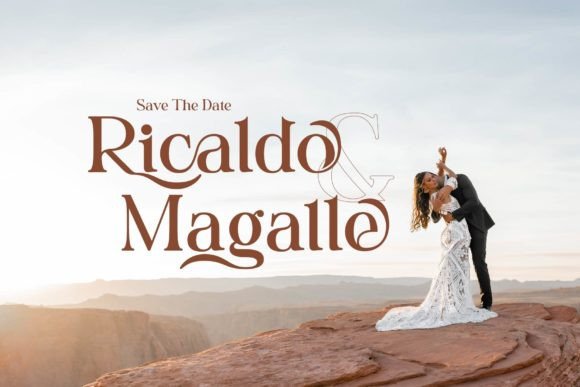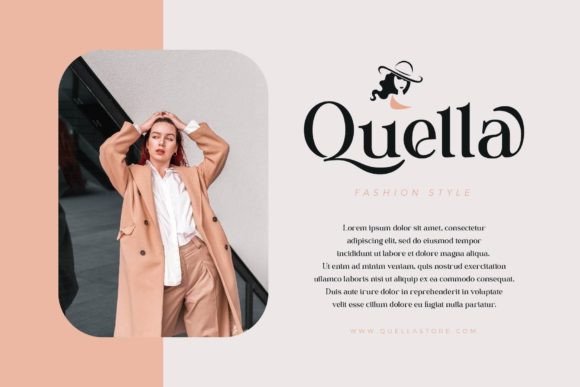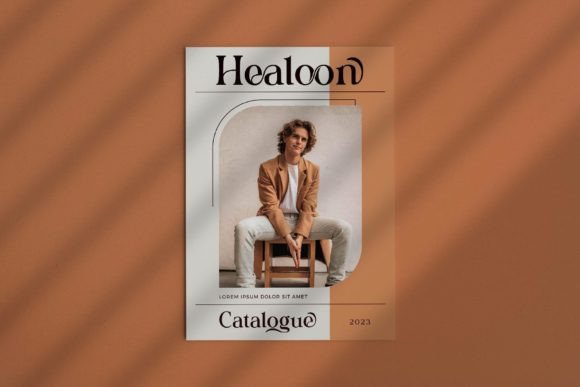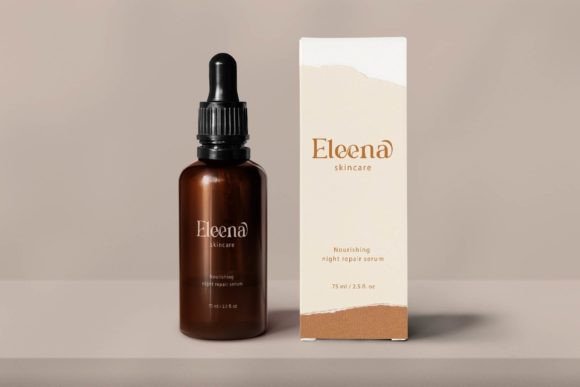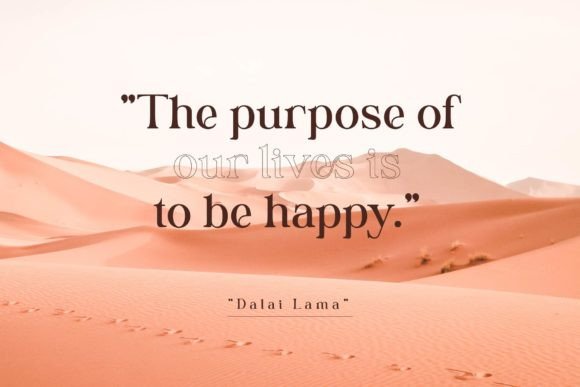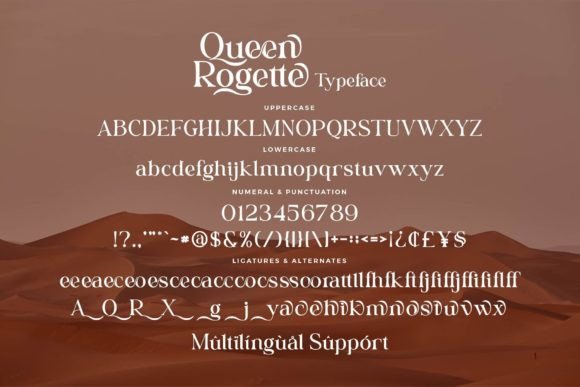
Introduction to Queen Rogette Font
Queen Rogette is a stylish ligature-rich serif typeface inspired by the famous minimalist logo.
It is perfect for designing templates, brochures, videos, advertising branding, logos, and more This font is PUA encoded, which means you can access all of the glyphs and swashes with ease.
Key Features of Queen Rogette Font